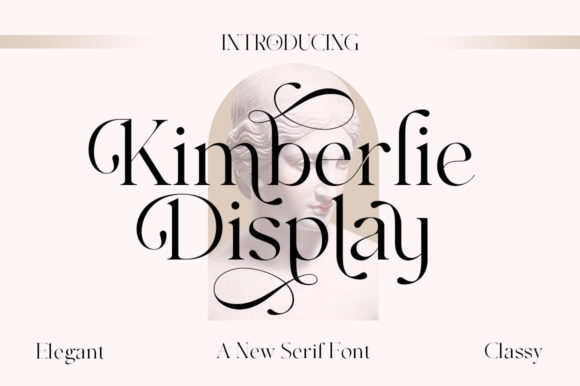
Welcome to the world of Kimberlie, a serif font family that will enhance your designs with grace and sophistication. Experience a world of typographic artistry as you embrace this captivating creation from Attract Studio. Step into a realm where letters dance in perfect harmony, creating visual symphonies that will captivate your audience and leave them spellbound.
As you delve into Kimberlie's character set, you'll discover a treasure trove of OpenType features, including ligatures and alternates, that elevate your typography to new heights of creativity. These carefully crafted elements add a touch of elegance and personality to your designs, ensuring that your words command attention and make a lasting impression.
With Kimberlie's PUA encoding, you can effortlessly access the entire range of glyphs and ligatures, expanding your design possibilities and allowing you to unleash your imagination. Unleash your creativity and produce stunning works of art that showcase your unique style and vision.
Imagine your designs adorned with Kimberlie's timeless beauty. Whether you're crafting magazine ads, creating eye-catching logos, or designing breathtaking posters, Kimberlie will transform your concepts into captivating masterpieces. Its classic serif strokes evoke a sense of sophistication and authority, giving your creations a timeless appeal that will stand the test of time.
Kimberlie is not merely a font; it's an artistic journey waiting to be embarked upon. With its ability to effortlessly enhance any design, it's the perfect choice for designers, artists, and creatives who seek to make a statement. Its versatility extends to a wide range of design applications, making it a must-have for anyone seeking to create captivating visuals.
Allow yourself to be swept away by the allure of Kimberlie. It's a font family that will redefine your creative boundaries, ignite your passion for design, and leave an indelible mark on your audience. Embrace Kimberlie today and embark on a typographic adventure that will redefine your creative horizons.